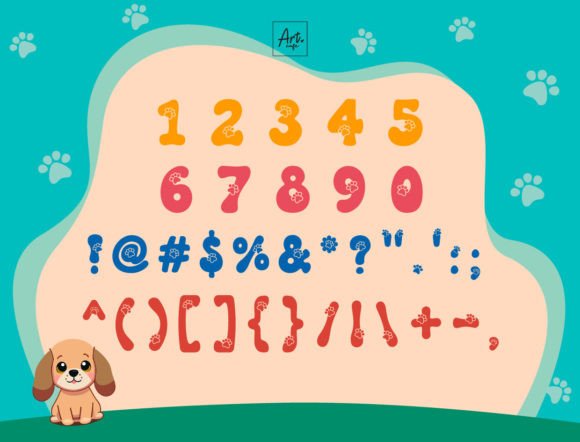
Retro Dog Font
Immerse yourself in the nostalgic charm of the Retro Dog font. Crafted with a winning blend of vintage elegance and playful whimsy, this unique typeface is adorned with darling paw motifs, offering a delightful nod to all cat and dog enthusiasts. Retro Dog is an ideal choice for headlining posters or projects linked to our four-legged friends, equally resonating with children and vet clinics. Let Retro Dog infuse a touch of timeless appeal and pet-inspired fun into your design journey.